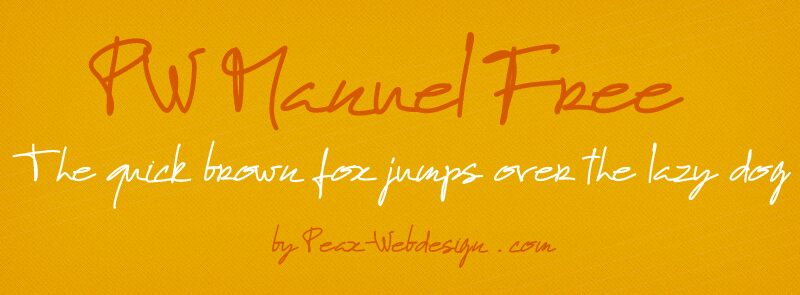
PW Manuel by Peax Webdesign is a free handwritten font whose oversized loops, rapid changes of direction, and extended cross-strokes recall an exuberant signature scrawled at speed. Several strokes overlap or double back through the letters.
Fashion labels, music venues, and youth-focused brands could use that unruly movement across posters, merchandise, and social graphics, especially for campaigns centered on live performance, street culture, or independent art. In editorial design, the sweeping marks can become part of a cover image or magazine feature, echoing scribbled notes, performer autographs, and other raw source material instead of functioning as neutral titling on the page.